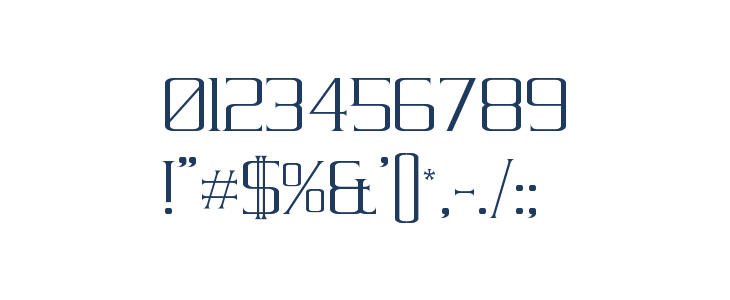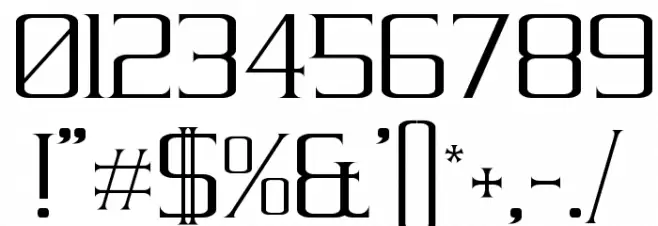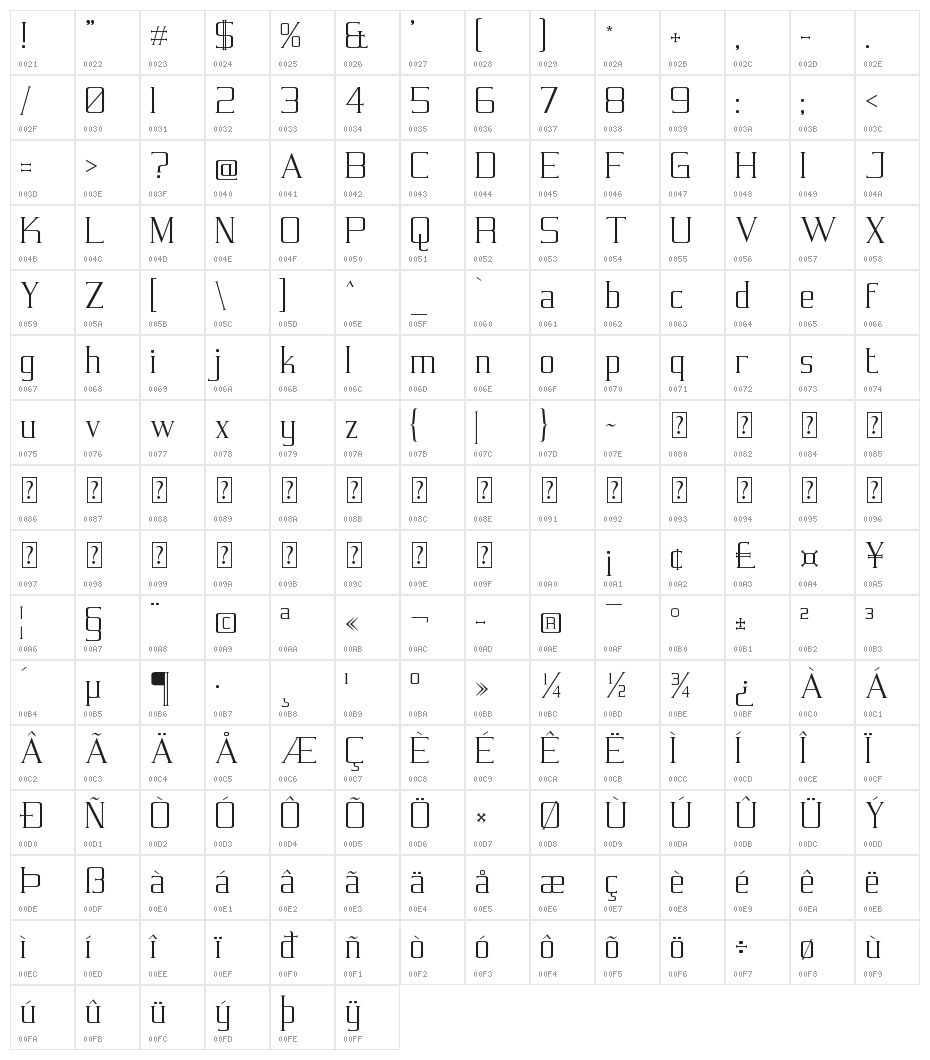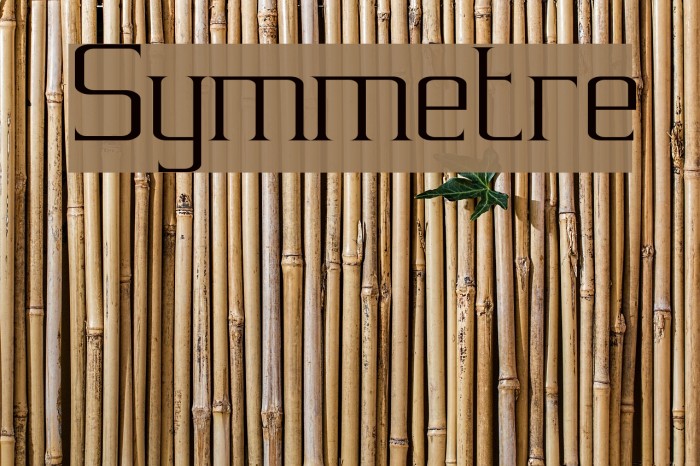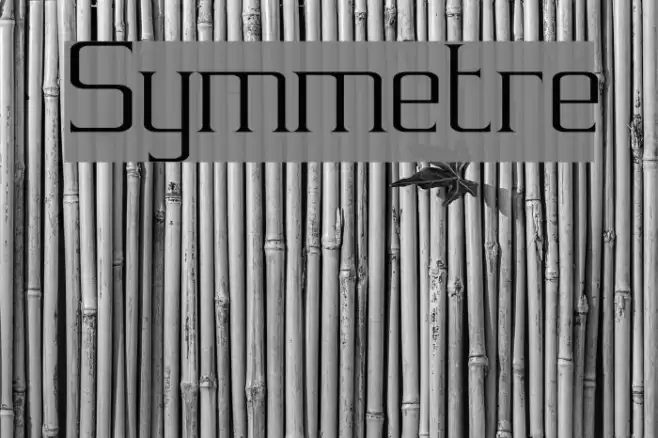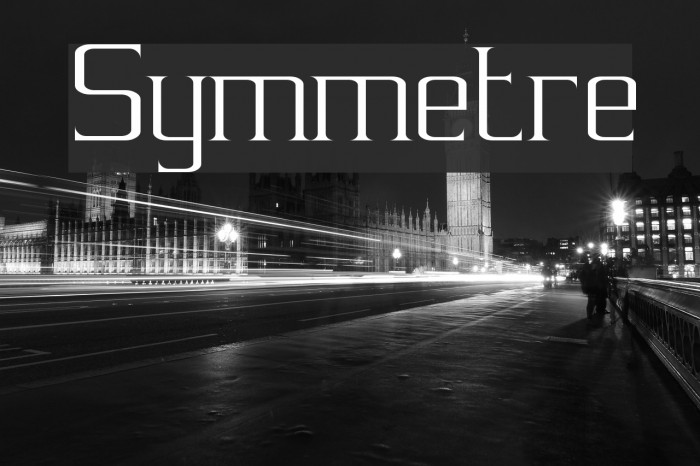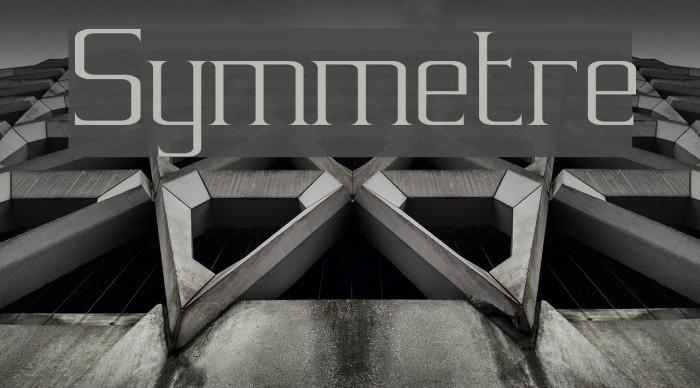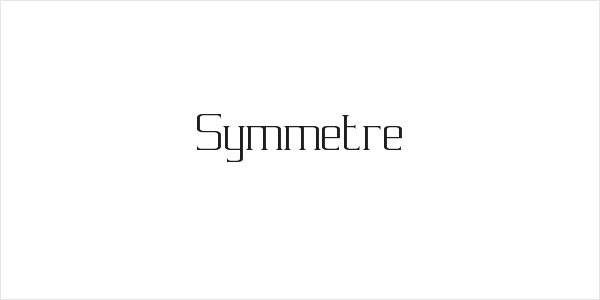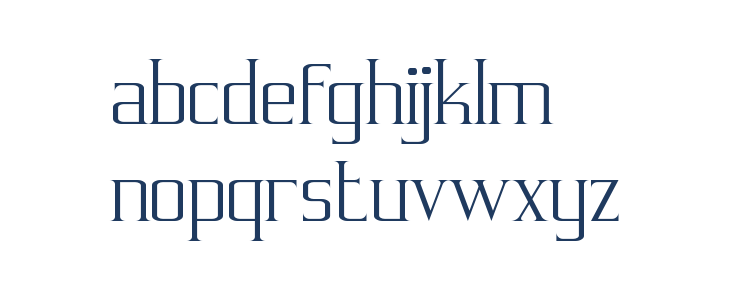
Symmetre Font
Symmetre Description
This font features a unique blend of geometric precision and artistic flair, characterized by its tall, narrow letterforms with sharp, angular edges. The uppercase letters exhibit a strong vertical emphasis, while the lowercase letters maintain a consistent height, creating a harmonious balance. The numerals are distinct and easily readable, with a modern twist that complements the overall aesthetic. Special characters are crafted with the same attention to detail, ensuring uniformity across all glyphs. This font's design is both elegant and contemporary, making it suitable for a variety of creative applications.